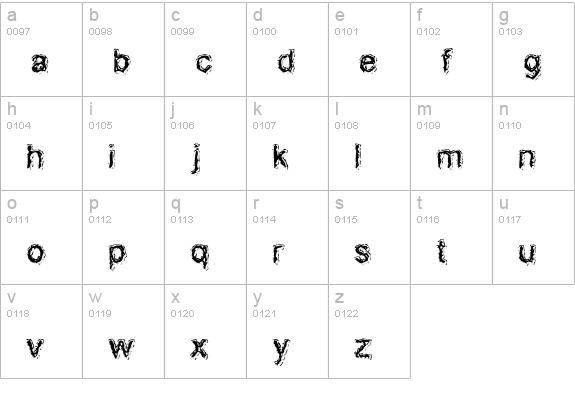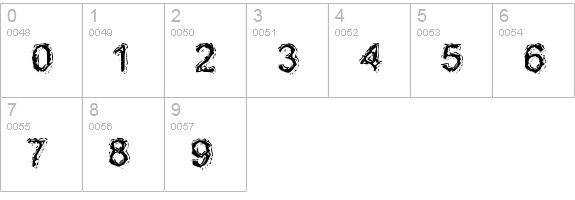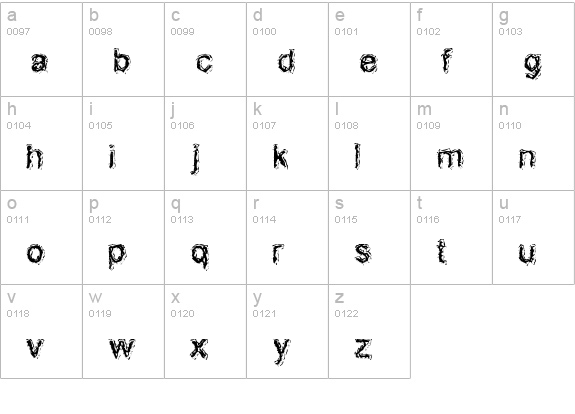
AcidDreamer Font Details
Introducing AcidDreamer font, a whimsical and playful typeface that is sure to add a touch of creativity to any design project. This unique font features bold, flowing lines and an eye-catching design that will make your text stand out. The AcidDreamer font is perfect for posters, invitations, logos, and more. Best of all, AcidDreamer font is completely free to download at FontsMarket.com. With just a few clicks, you can add this fun and dynamic font to your collection and start using it in your designs right away. Don't miss out on the opportunity to enhance your projects with the striking AcidDreamer font - download it today and let your creativity soar!